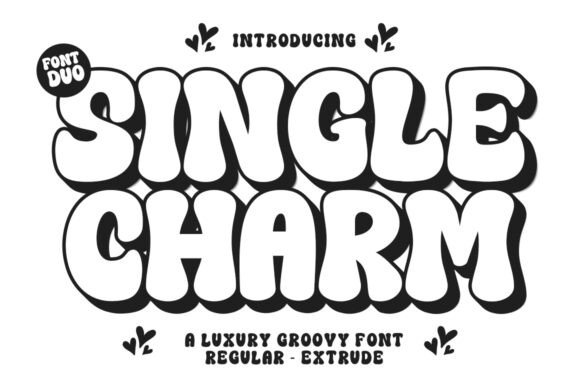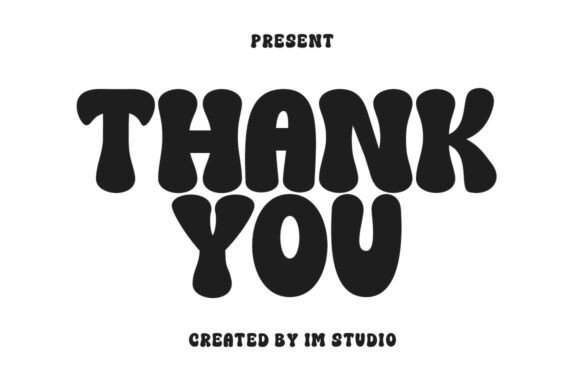
Single Charm Font
Embark on a typography journey with Single Charm – the multifaceted Graffiti Cartoon font engineered to amplify the uniqueness of your brand. Perfectly suited for crafting emblematic logos, vivacious comic book scripts, unforgettable watermarks, attention-grabbing posters, high-impact promotions, and bespoke product packaging. Single Charm magically transforms each alphabet into a statement piece explicitly bearing the lively graffiti cartoon essence. The kit features two font styles, regular and extrude, positively nudging your creative liberty to experiment and carve out your signature style. The font offers a comprehensive graffiti catalog comprising uppercase, lowercase letters, numerals, and punctuation, embracing the cartoon esprit in every stroke. Let your creativity take wings with the previews above as you sculpt your brand story with vibrancy and character. Single Charm is all set to propel your designs to unprecedented heights. Embrace the charm, and let it lead the way.